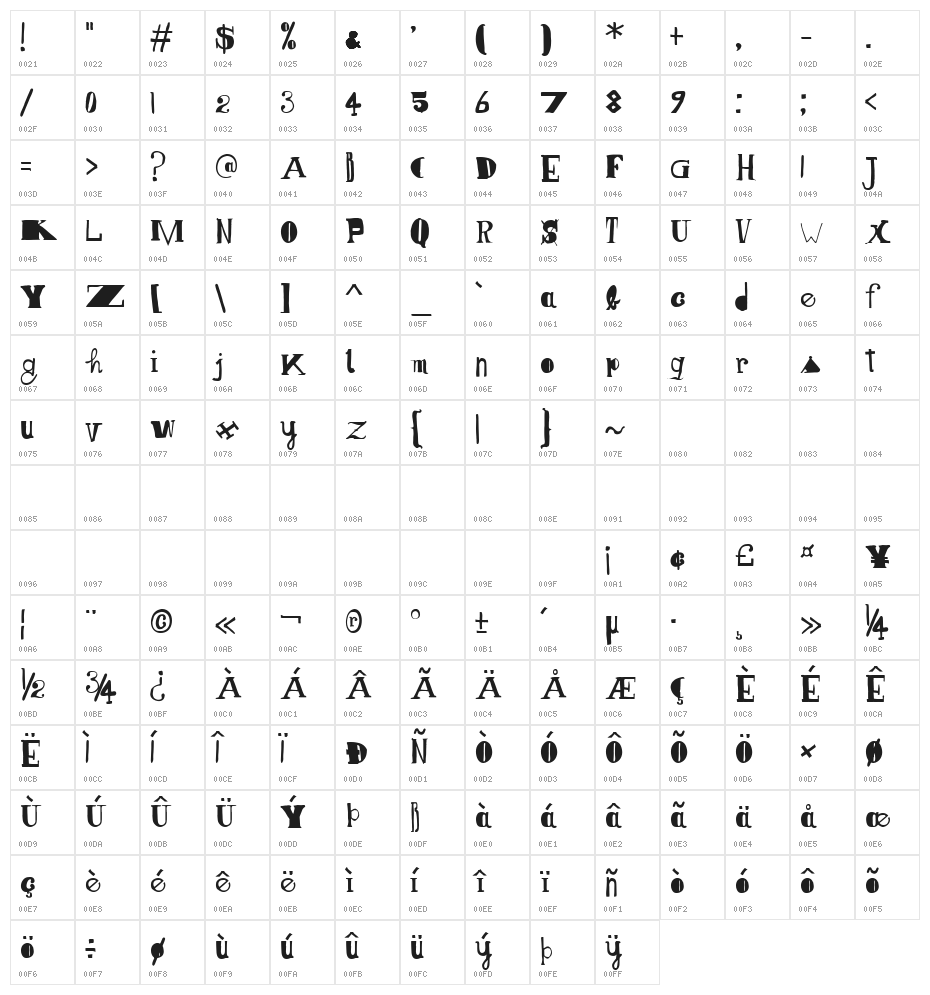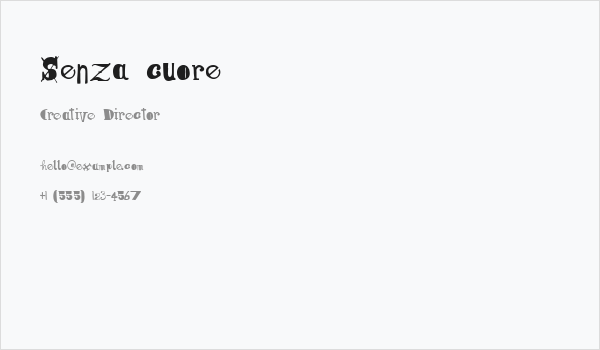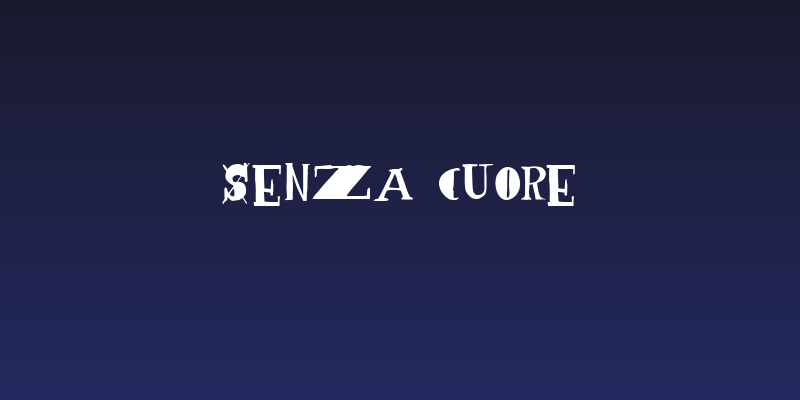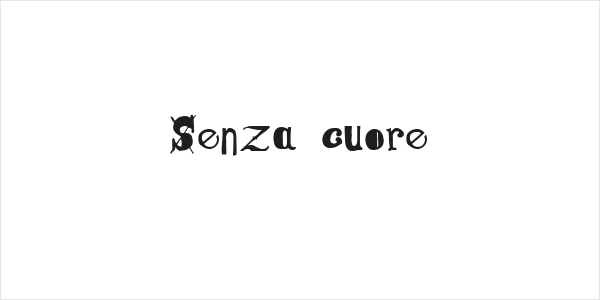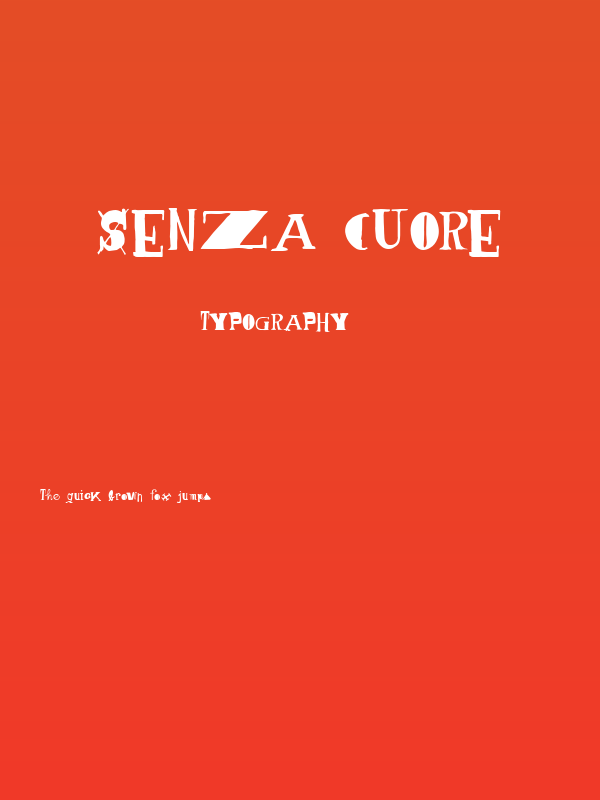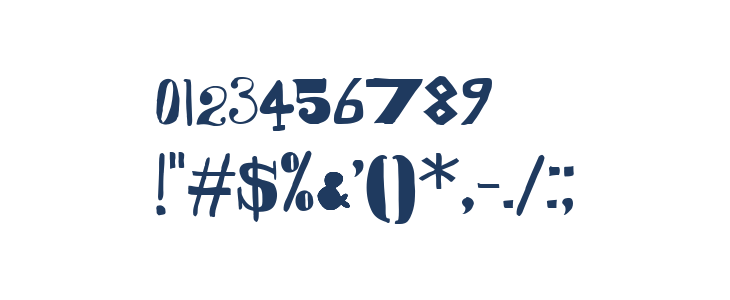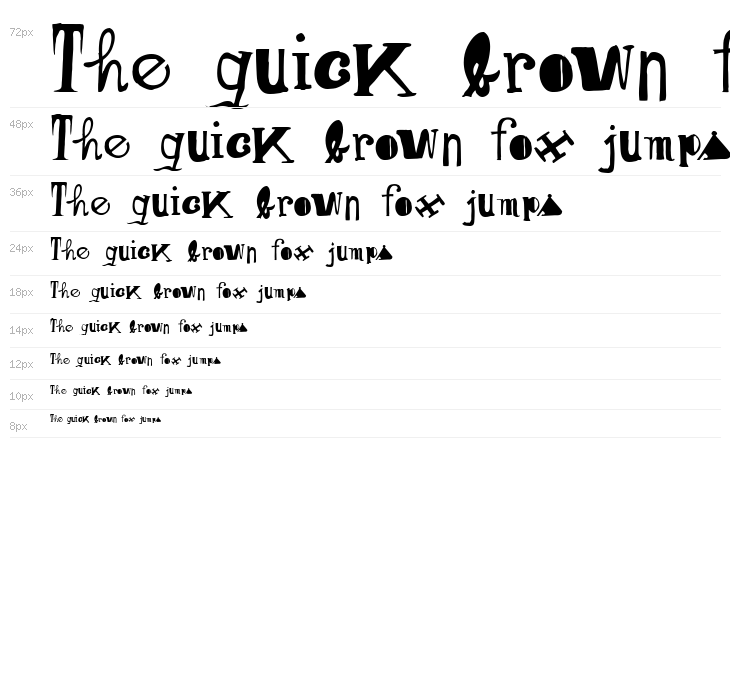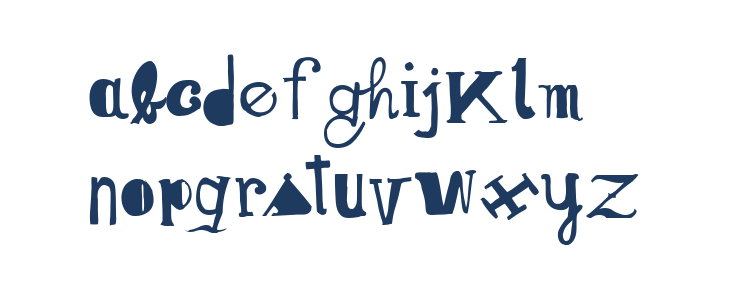
Senza cuore Font
Senza cuore Description
This font is a bold and eclectic display typeface that combines elements of both modern and vintage styles. The uppercase letters are characterized by their unique, irregular shapes and varying stroke widths, creating a sense of movement and dynamism. The lowercase letters maintain a playful and whimsical appearance, with some characters featuring exaggerated curves and loops. Numbers and special characters follow the same quirky design, adding to the font's overall charm. This typeface is ideal for projects that require a distinctive and eye-catching aesthetic.
| Proposed Projects | Ideal for posters, album covers, branding, and creative projects that require a unique and artistic touch. |